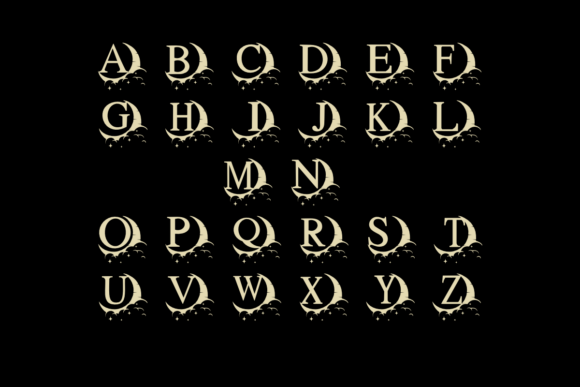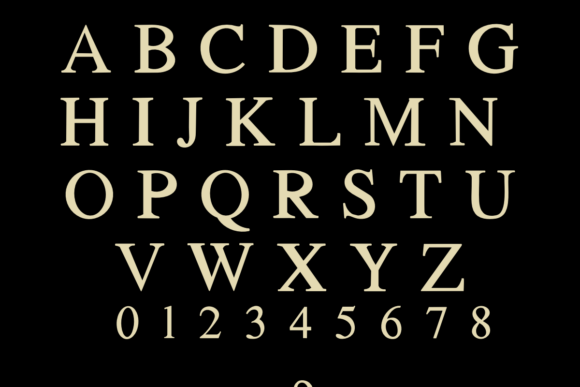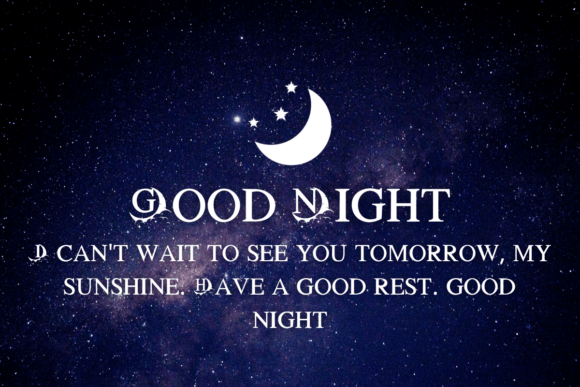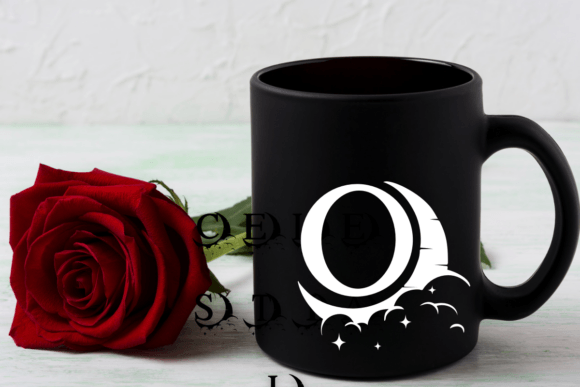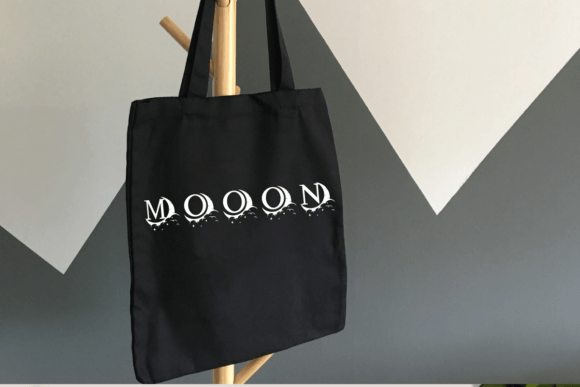
Introduction to Night Moon Monogram Font
Night Moon Monogram is a decorative font.
You can use it for taking notes, writing a diary, or making greeting cards However, you can still use it for other designs, such as banners, content, mugs, cards, shirts, stationery, social media posts, and more.
Key Features of Night Moon Monogram Font